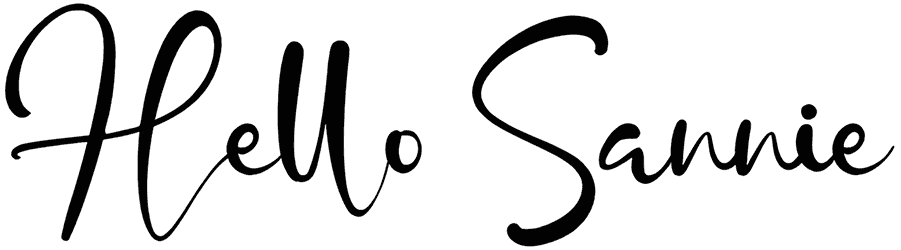
Hello Sannie Font
If you really feel the lack of a suitable and reliable script font, then we would like to advise you to check out the RB collection and take the best possible advantage of a lovely handwritten font such as Hello Sannie.
Its characters are rounded, thus it carries a sense of dynamic, personalization, vitality, or jauntiness. Needless to say, it can boost the quality of your social media posts, stickers, invitations, or flyers and take them to a higher level.